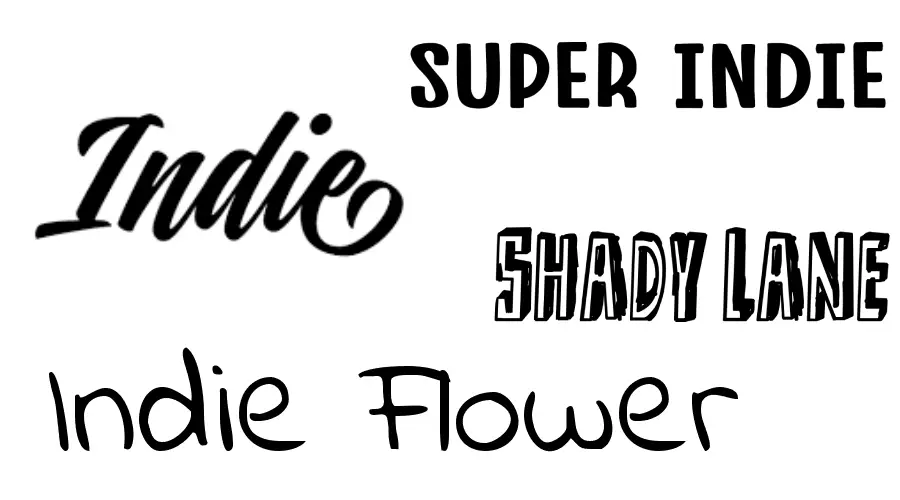
Indie Font
An indie font is any typeface that looks hand-drawn, loose, playful, and slightly imperfect, created by small designers instead of big companies, so it feels personal and offbeat rather than slick and corporate. Some fonts even have “Indie” in their names, such as Indie by Maximiliano Sproviero, a sun-bleached brush script; Indie Flower by Kimberly Geswein, a rounded marker handwriting font on Google Fonts; and Indie by Animography, a rough condensed family built for motion titles.
Here are some fonts that come from small, independent studios rather than big corporations, so they keep the loose, personal vibe that defines an indie font.
Choosing an indie font is like choosing to wear something that shows off your unique style instead of a generic uniform. It’s a simple way to give your words a soul.